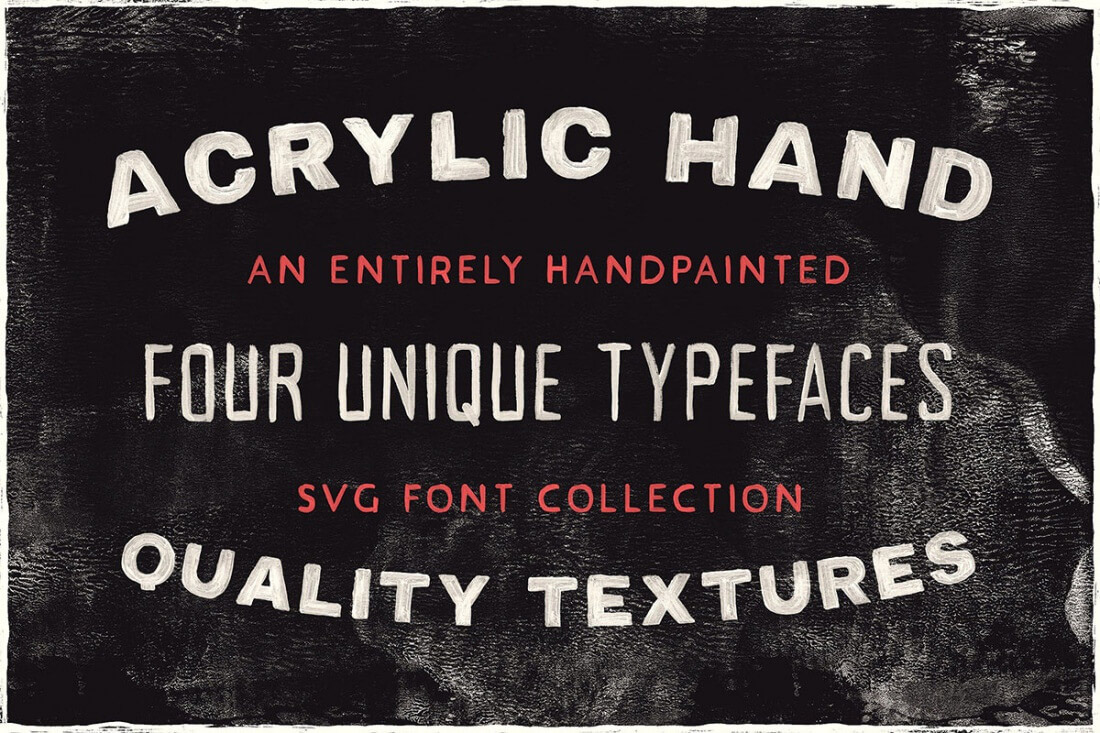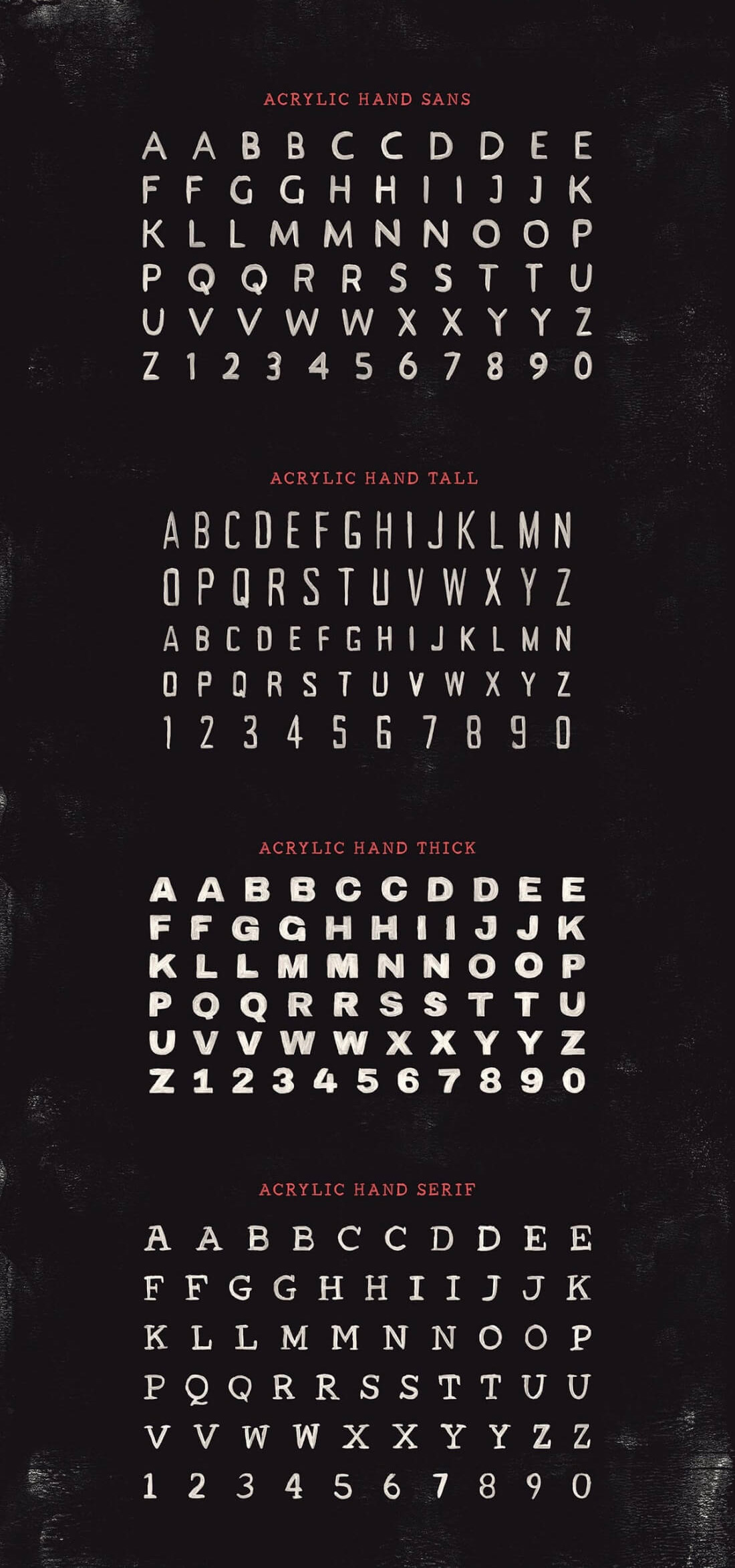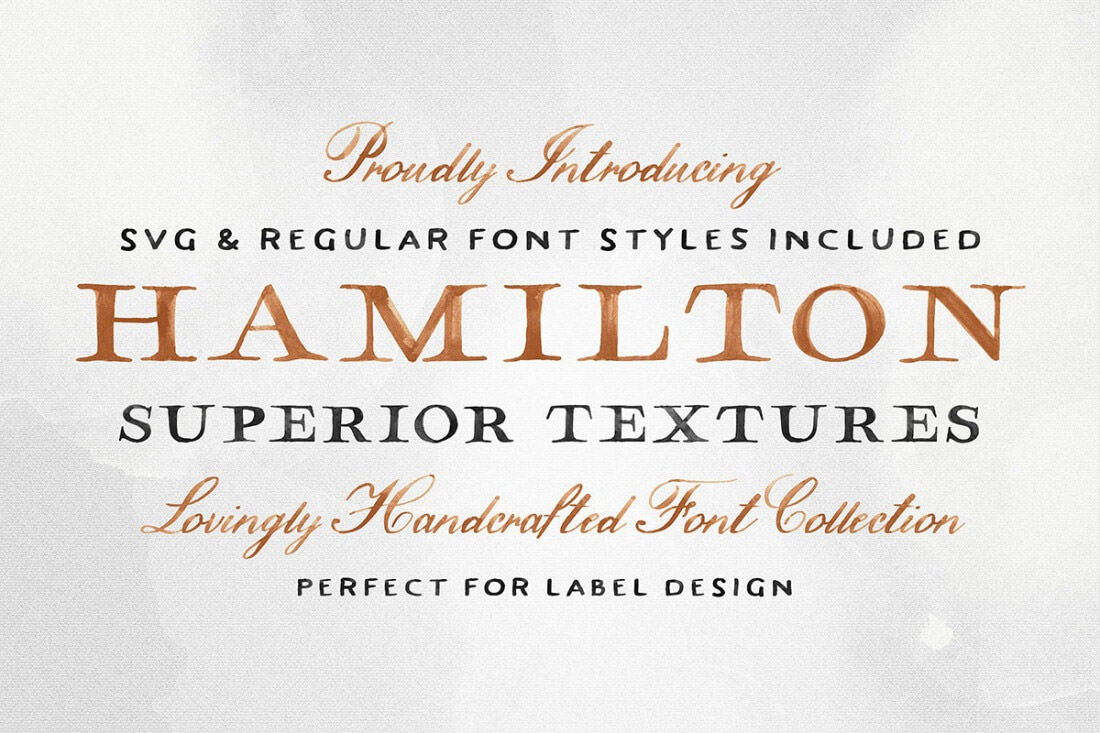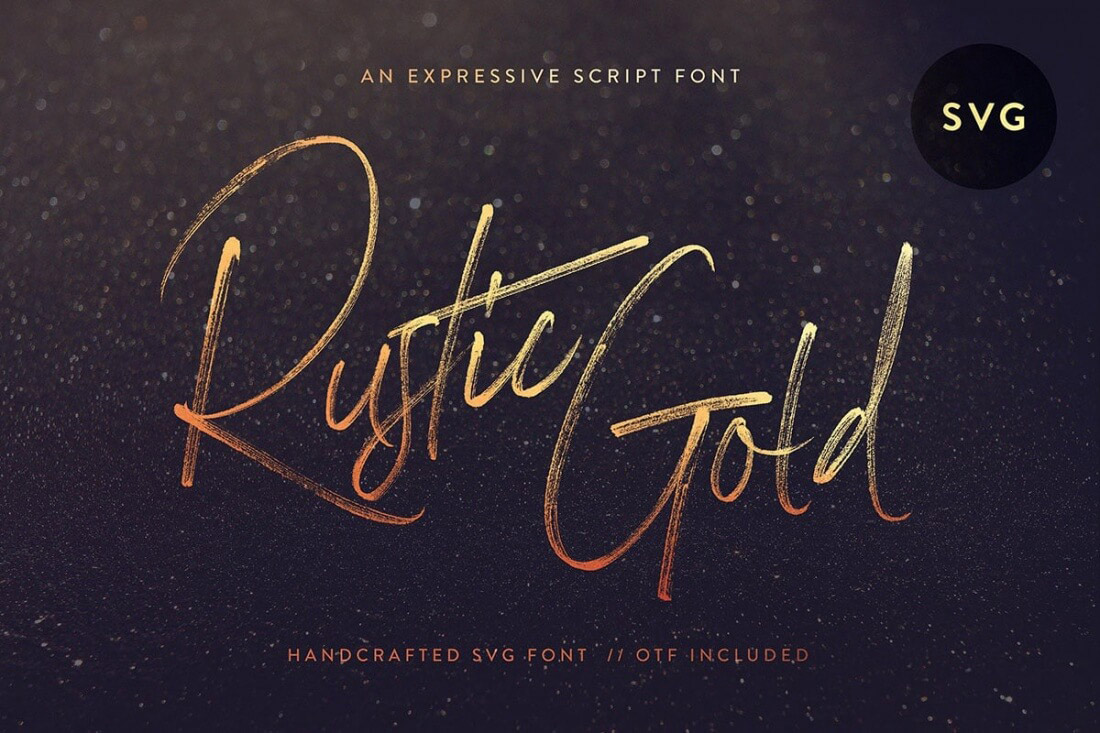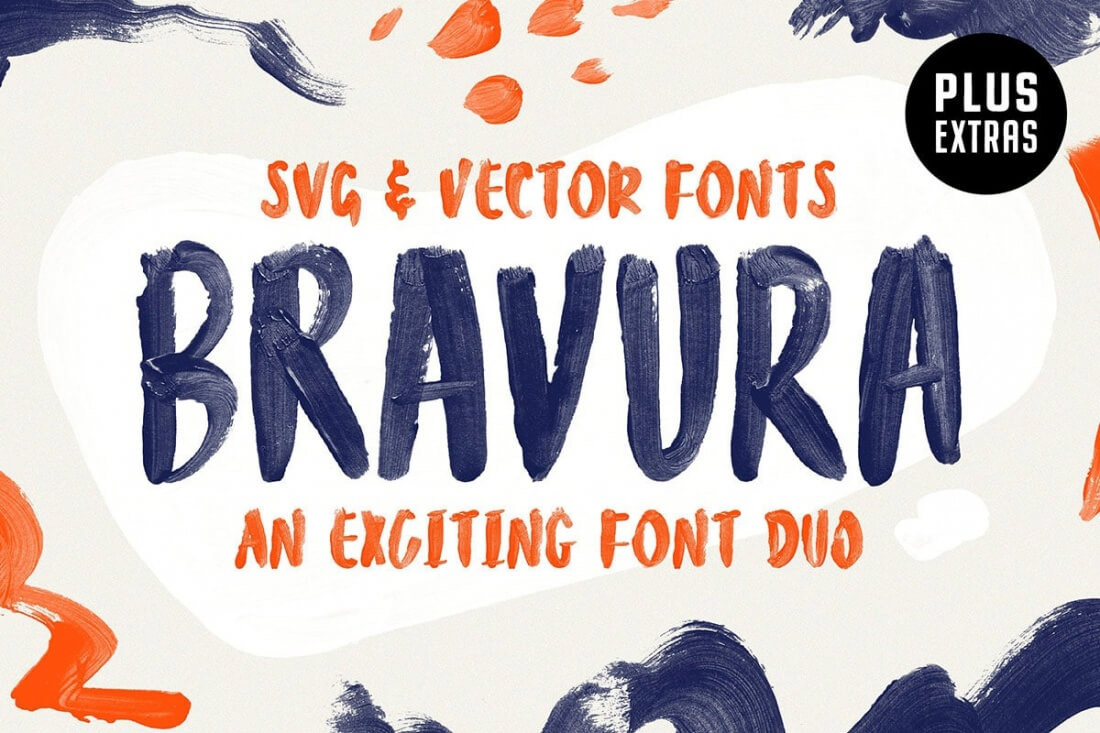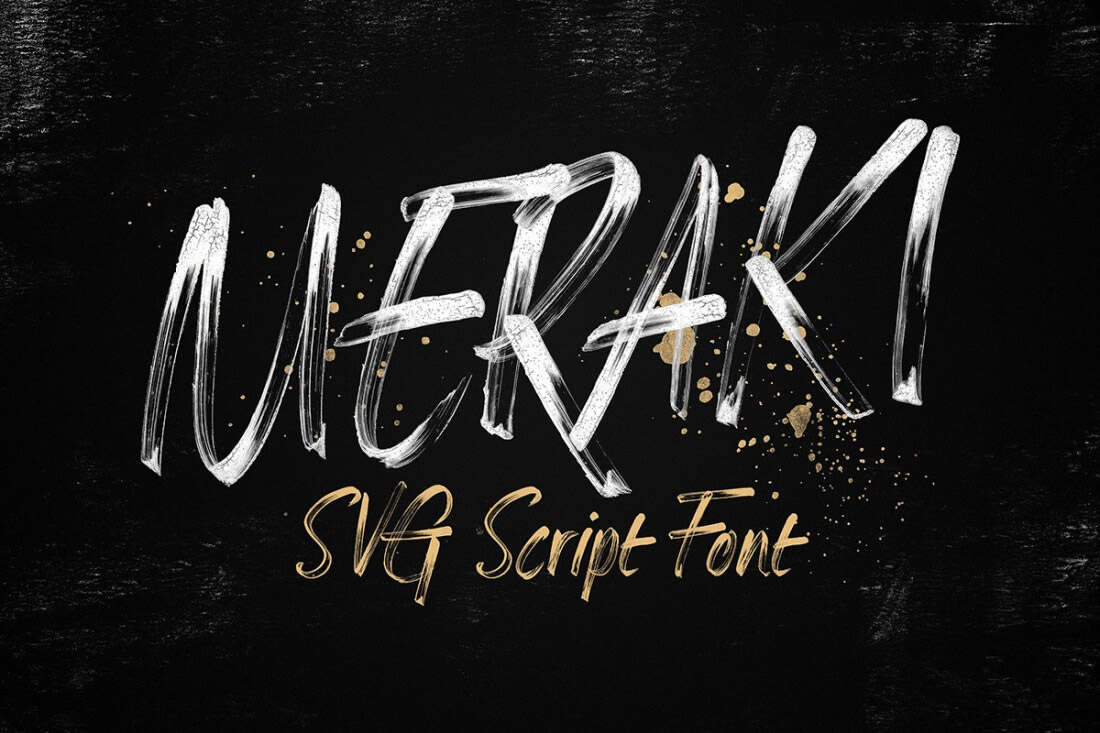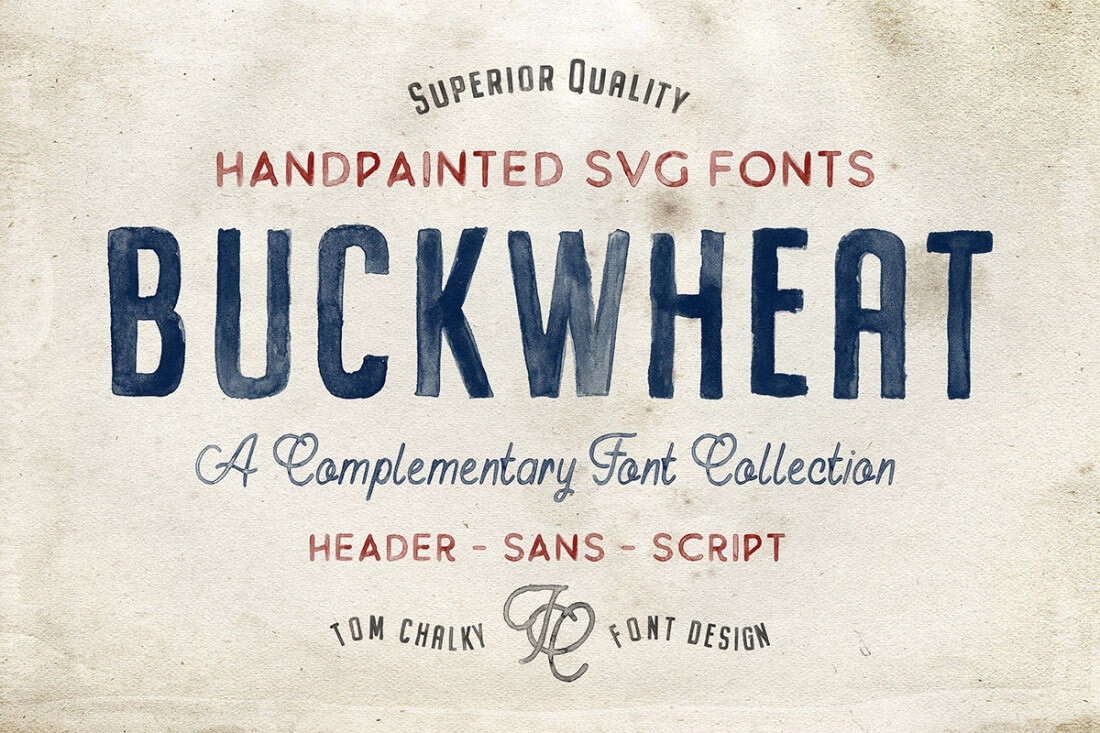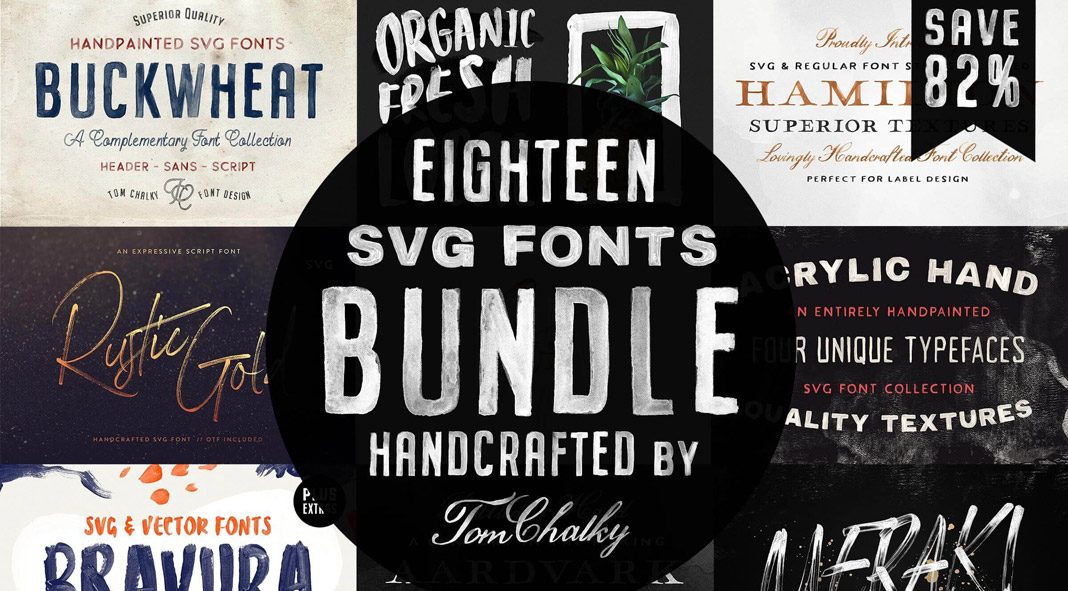
Drawn by hand and provided by graphic and type designer Tom Chalky, this bundle includes only SVG fonts, which means that these typefaces look like they were literally painted right on your screen. The collection includes 6 font packages, featuring 18 fonts in total. It’s fun to play around with these typefaces. Using the SVG format, you are able to create even more realistic type designs. The selection of fonts supports plenty of uses. You can use them to create stylish posters, signage, T-shirts, etc. The bundle includes the following SVG fonts: Acrylic Hand, Hamilton, Rustic Gold, Bravura, Meraki, and Buckwheat. As a bonus, the set also includes gold and hand-painted texture packs.